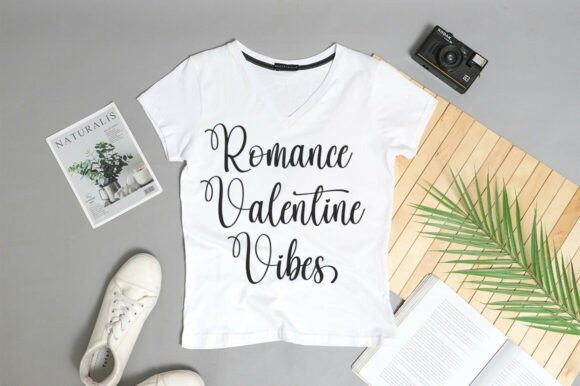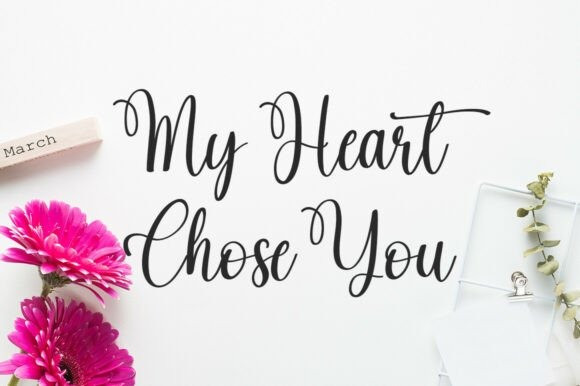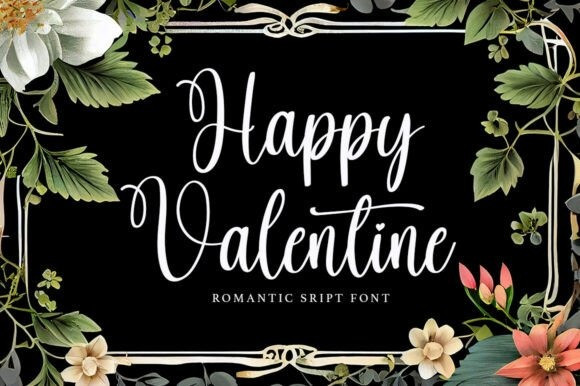
Happy Valentine Script Font
Happy Valentine Script Font is a sweet and romantic handwritten script font designed to bring love and warmth to your creative projects. With its playful curves and charming strokes, this font is perfect for Valentine’s Day designs and anything that needs a touch of love